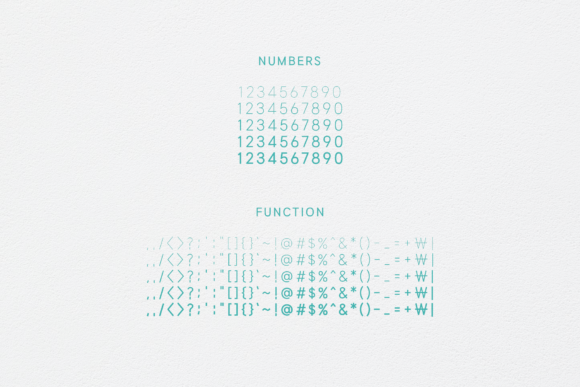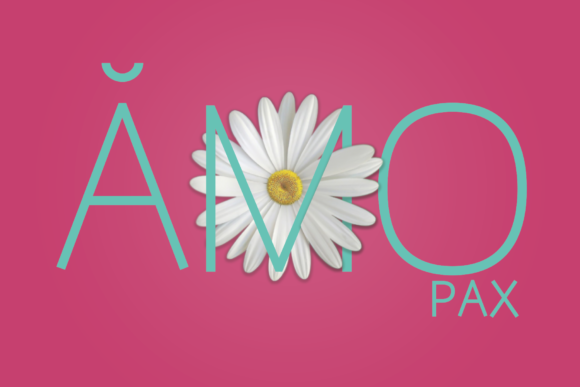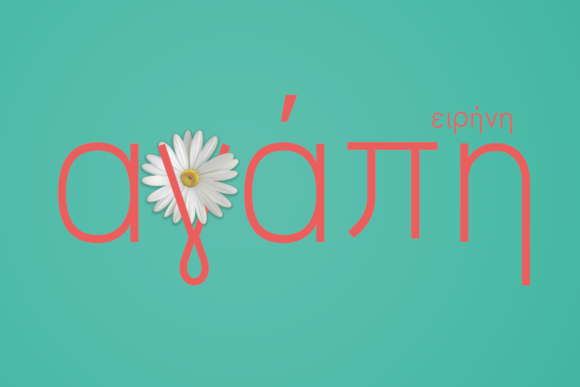
Introduction to Hu Windsans Font
As designers, we’ve all been there – staring at a blank page, trying to bring our creative vision to life. And then, it happens. A spark of inspiration strikes, and we’re off and running. For many of us, that spark is fueled by the right font – one that perfectly captures the essence of our project. If you’re on the hunt for a high-quality design resource that’s both versatile and stylish, you’re in luck. Say hello to Hu Windsans Font, a free download that’s about to become your new go-to.
With its lightweight feel and long body of characters, Hu Windsans Font is the perfect companion for any creative project. Whether you’re working on a branding campaign, a digital product, or a simple blog post, this font is sure to elevate your design to the next level. And the best part? It’s completely free to download, making it an accessible resource for designers of all levels. Plus, with its transparent background, you can easily layer it over images or textures for a truly unique look.
So why is Hu Windsans Font so valuable for designers? For starters, its unique shape and feel make it stand out from the crowd. Characters like the descender of ‘g’ and median of ‘t’ evoke the image of a gentle breeze, adding a touch of whimsy and personality to any design. Whether you’re working on a serious business project or a fun personal blog, this font is sure to bring a smile to your face and a touch of creativity to your work.
Key Features of Hu Windsans Font
- Transparent background, allowing for seamless integration into designs
- Features a clean and modern sans-serif font style, perfect for contemporary designs
- Supports a wide range of languages, making it a versatile design resource
Honest Review: Hu Windsans Font
As a designer, I’m always on the lookout for high-quality design resources to enhance my creative projects. Recently, I stumbled upon the Hu Windsans Font, and I’m excited to share my honest review with you.
- High-quality design: The Hu Windsans Font is sleek, modern, and perfect for any creative project that requires a clean and sophisticated look.
- Transparent background: The font’s transparent background allows for seamless integration with any background image or color.
Any limitations ⚠️
- Limited font variations: While the font is clean and modern, it’s a bit limited in terms of font variations, which may not be suitable for designers who require a wide range of styles.
Overall, I’m impressed with the Hu Windsans Font. Its high-quality design, free download, and transparent background make it an excellent resource for designers. While it may have some limitations, I believe it’s a great addition to any design library.
Common Use Cases for the Font
The Hu Windsans Font is commonly used in a variety of design applications, including social media graphics, presentations, and logos. It is also used in creative projects, such as graphic design and digital art, where a high-quality font is needed to create a unique and creative design.
Is the Hu Windsans Font suitable for use on transparent backgrounds?
Yes, the Hu Windsans Font is designed to be used on transparent backgrounds. It has a transparent background, making it ideal for use in designs that require a clear or see-through effect. However, keep in mind that the font’s appearance may be affected by the surrounding design elements, so it’s essential to test it in your specific design scenario.